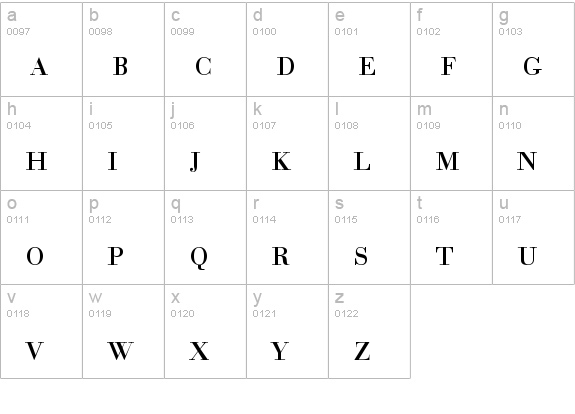
Bauer Bodoni Roman Small Caps & Oldstyle Figures Font Details
Bauer Bodoni Roman Small Caps & Oldstyle Figures font is a timeless and elegant typeface that exudes sophistication and class. Its refined serifs and delicate curves make it perfect for adding a touch of luxury to any design project. The small caps and oldstyle figures bring a sense of tradition and charm, making this font a versatile choice for both formal and creative applications. Best of all, this exquisite font is available for free download at FontsMarket.com. Whether you're working on a branding project, a wedding invitation, or a magazine layout, Bauer Bodoni Roman Small Caps & Oldstyle Figures font will elevate your design to new heights. Download it today and add a touch of timeless elegance to your creations.